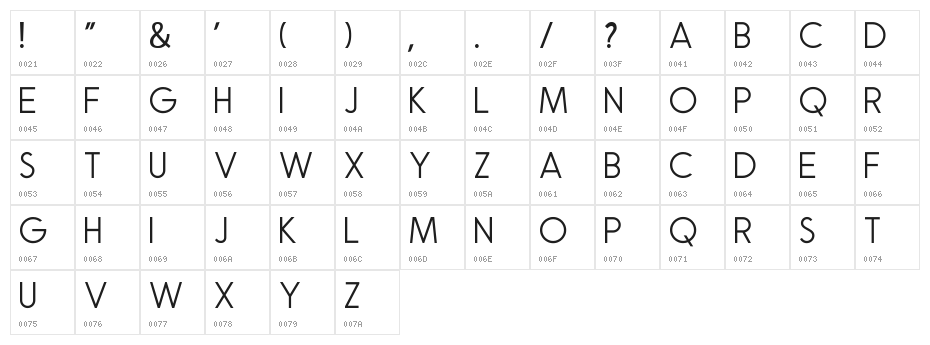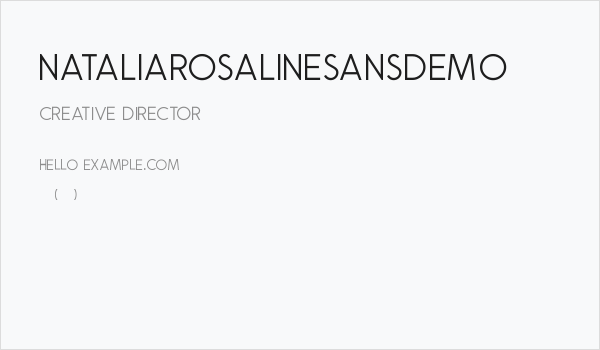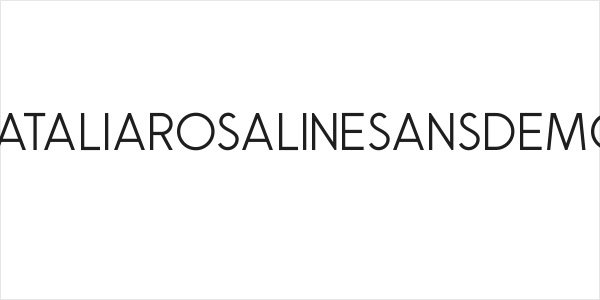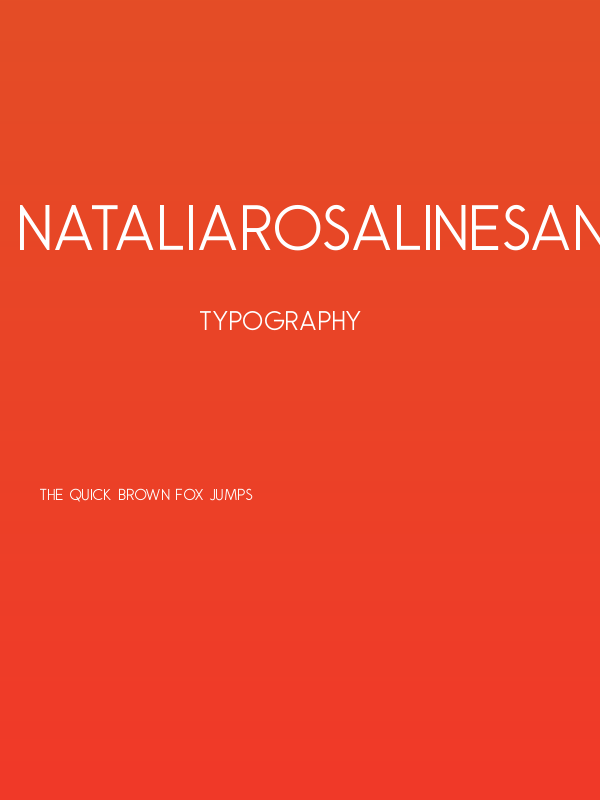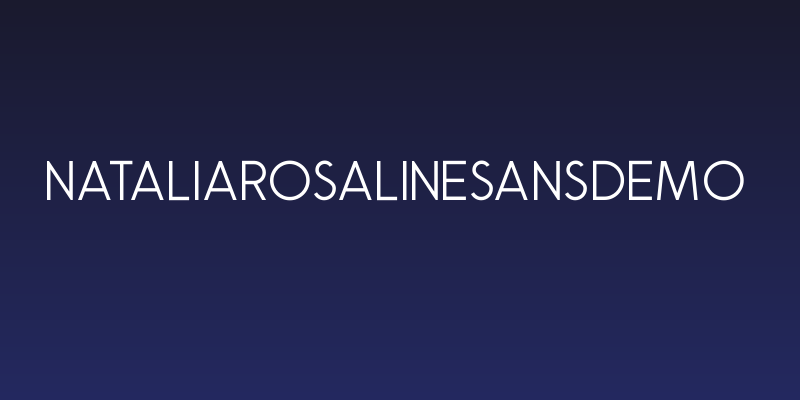
NataliaRosalineSansDemo Font
NataliaRosalineSansDemo Description
This font features a clean and modern sans-serif design, characterized by its geometric shapes and uniform stroke widths. The letters are well-proportioned, with a slight emphasis on verticality, giving it a sleek and contemporary appearance. The uppercase and lowercase letters maintain a consistent style, ensuring readability and versatility across different applications. The numerals and special characters are designed to complement the alphabet, providing a cohesive look. This font's simplicity and clarity make it suitable for a wide range of design projects.
| Proposed Projects | Ideal for branding, web design, advertising, and editorial layouts. |